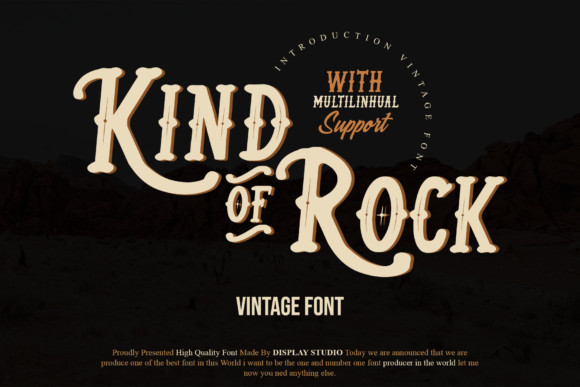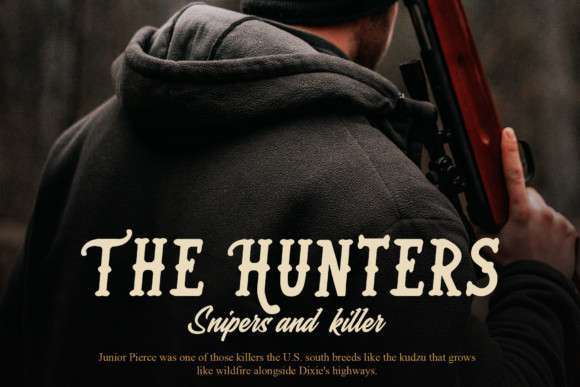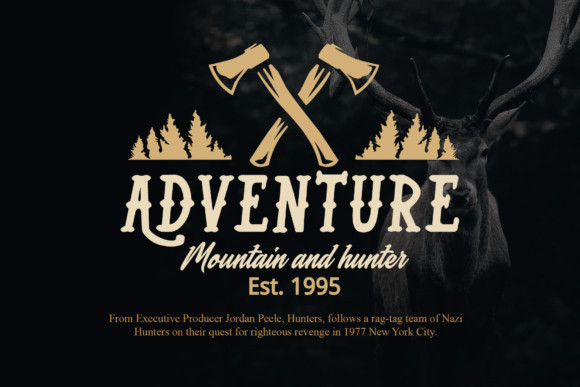
Kind of Rock Font
Kind of Rock is an incredibly unique and bold display font, characterized by a vintage touch. Add it to your creative ideas and notice how it makes them stand out!